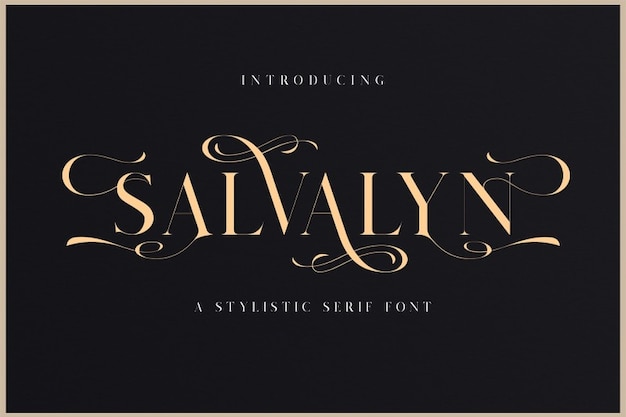
Salvalyn Font
Discover Salvalyn, where modern meets decorative in perfect harmony. This font is the epitome of style and aesthetics, making it an ideal choice for your creative projects. Its sleek lines and elegant curves bring a touch of sophistication to your designs, whether you're crafting a logo, poster, or website. With Salvalyn, you'll effortlessly achieve a contemporary, stylish look that captivates your audience. Elevate your design game and make a statement with Salvalyn today!